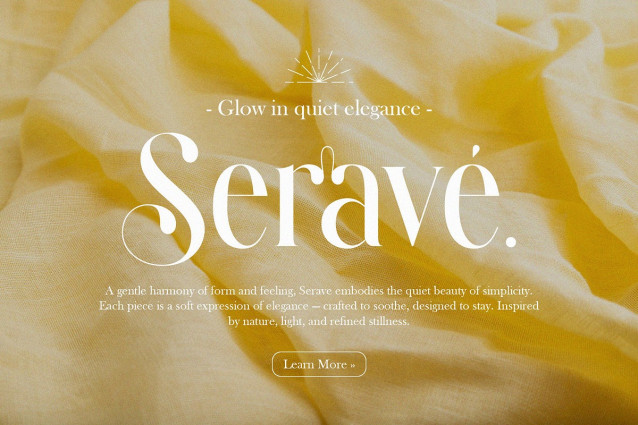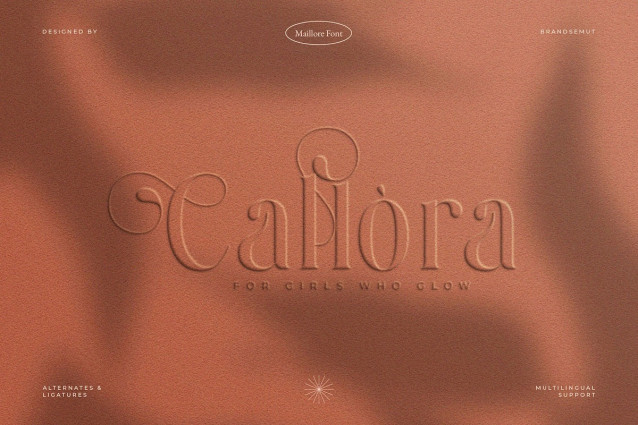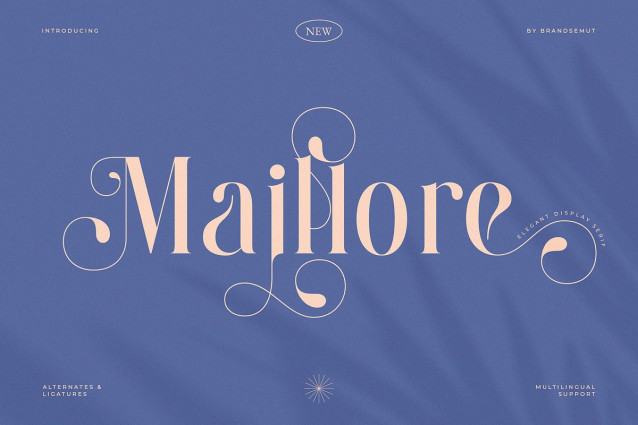
Maillore Font
Maillore Font is an elegant and refined modern display serif font that combines graceful curves with distinctive flair. Designed to exude both sophistication and style, this typeface features decorative ligatures and beautiful alternates that elevate any creative composition.
With its high contrast strokes and soft, luxurious forms, Maillore is the ideal font for upscale branding, fashion editorial titles, packaging, wedding stationery, social media posts, and more. Every letterform has been carefully crafted to deliver balance, elegance, and strong visual impact—making your design projects stand out effortlessly.